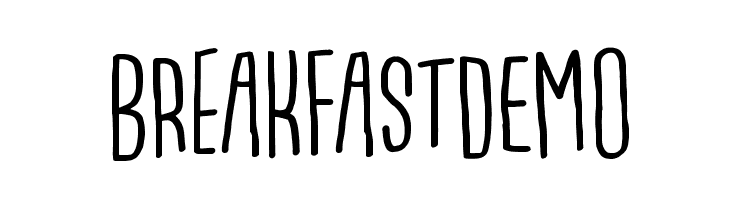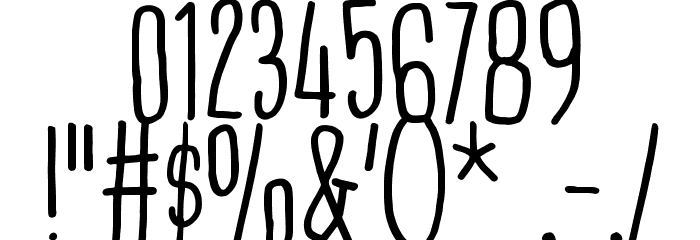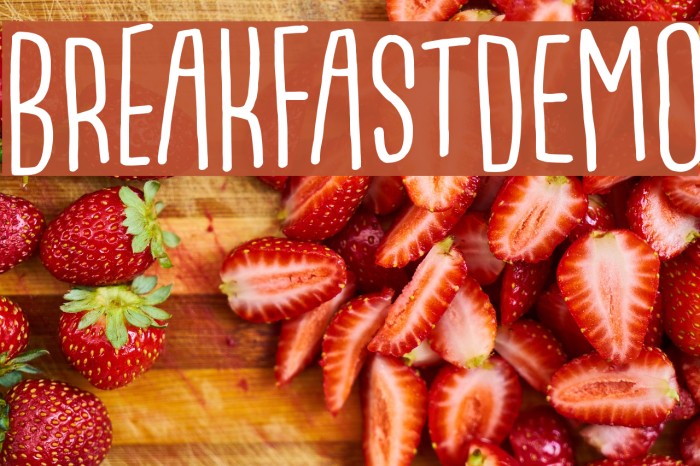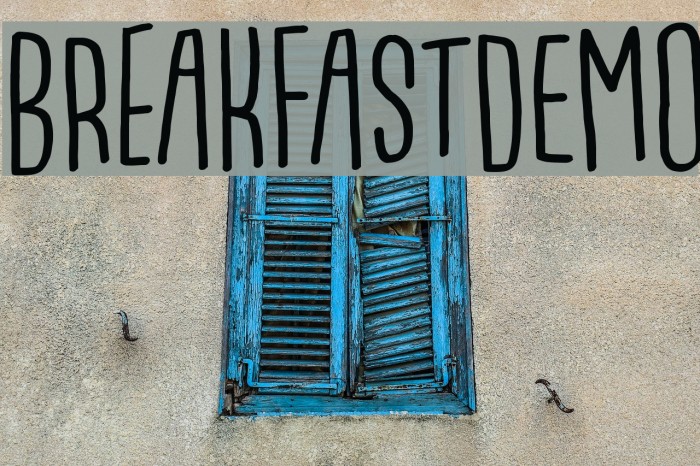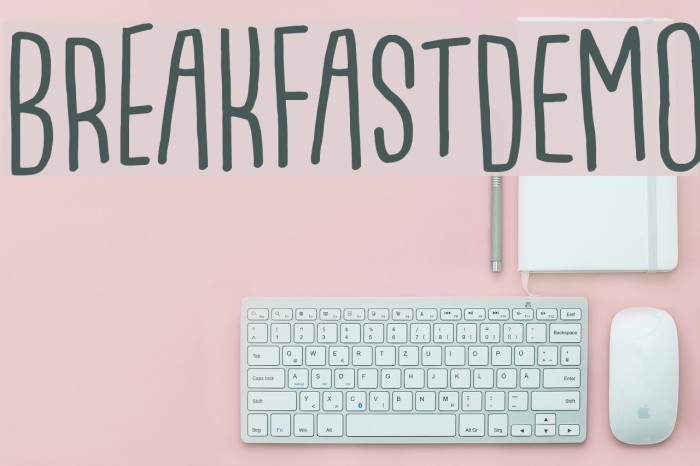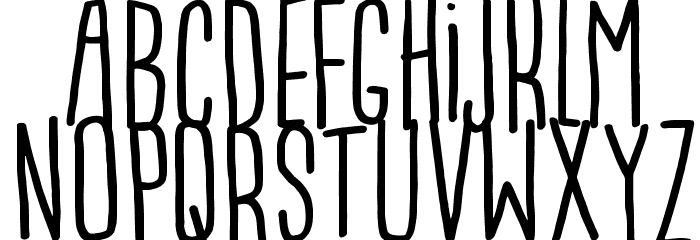
BreakfastDEMO Font
| Projetos propostos | Ideal for creative projects such as children's books, greeting cards, posters, and branding materials that require a whimsical and personal touch. |